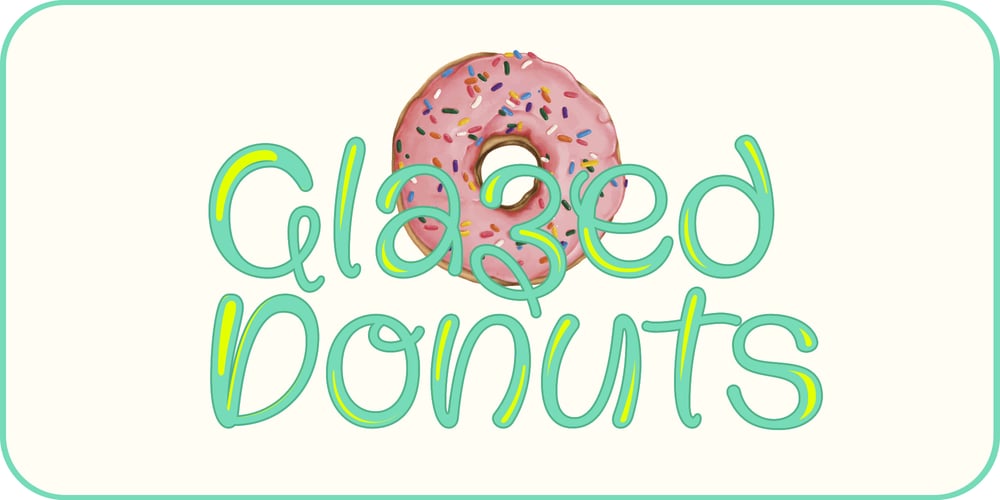
Glazed Donuts Font Family was designed by Dain Choi and published by DainType. Glazed Donuts contains 3 styles and family package options. The letters are reminiscent of shiny and tasty glazed donuts. There are three type families, and you can mix them all up to create a decently fun typography. Great for promotional material or package design.